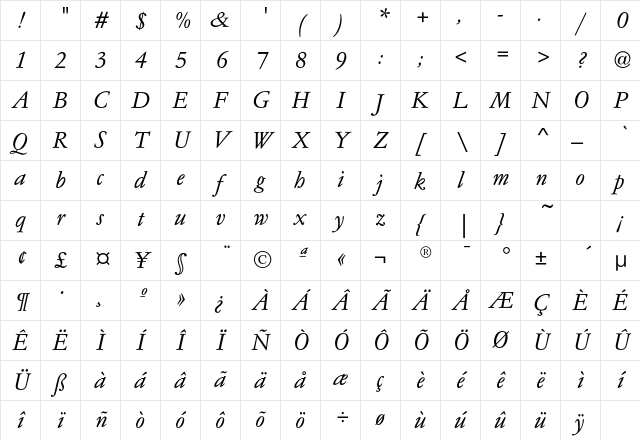
GaramondNo5EF-LightItalic Regular
Design Context for GaramondNo5EF-LightItalic
GaramondNo5EF-LightItalic is a composed and adaptable typeface that performs quietly and consistently across a wide range of design contexts. The slanted form adds forward momentum and visual energy. Its slender proportions lend an understated elegance to any composition.